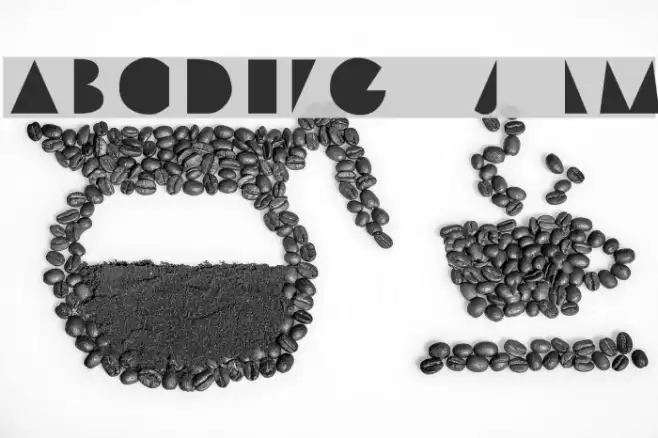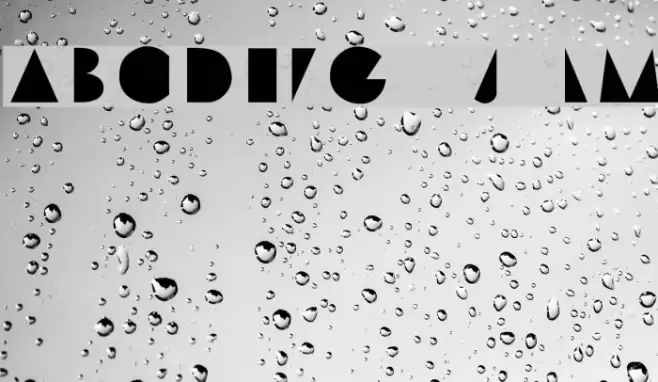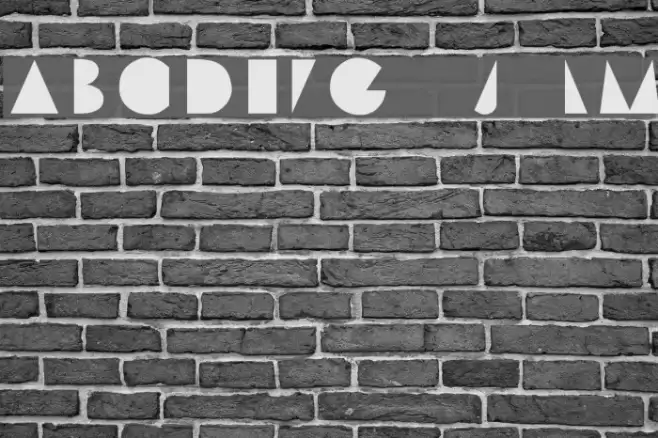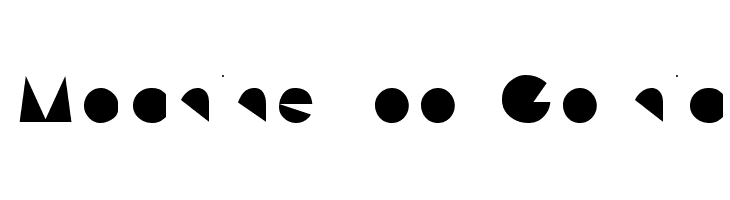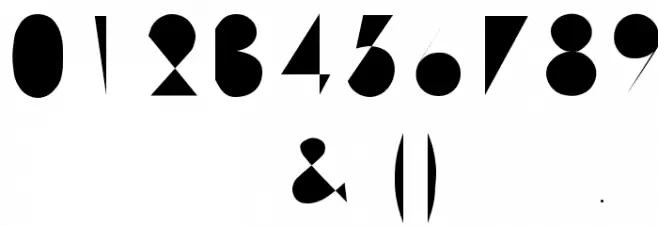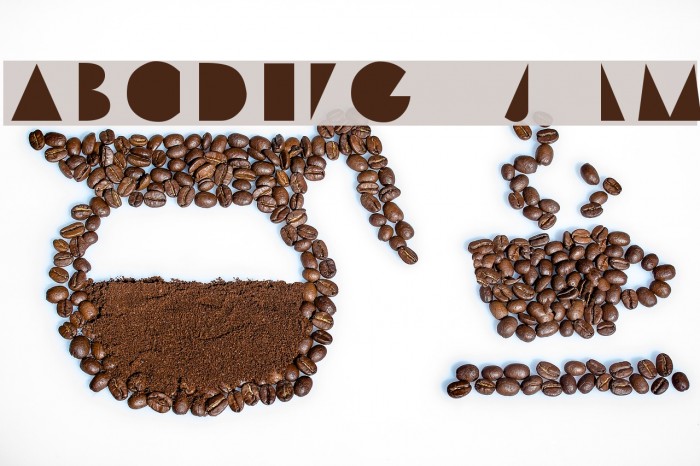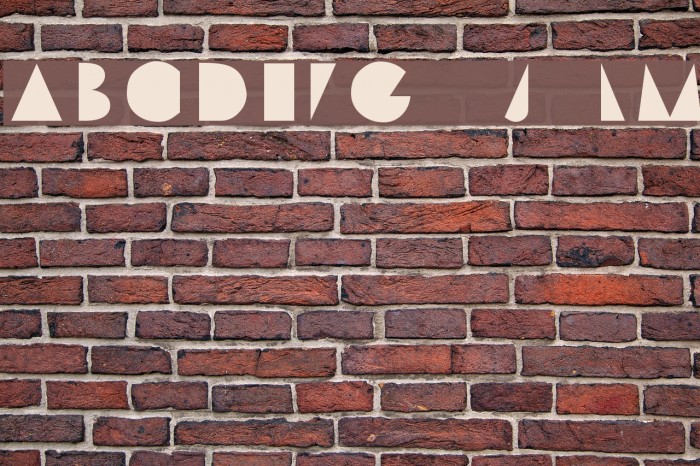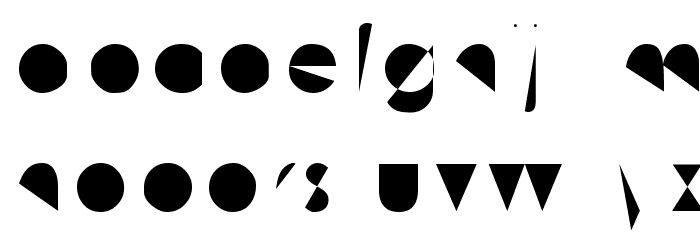
Machine Tool Gothic Font
Machine Tool Gothic Description
This font features a bold, geometric style with a strong emphasis on angular shapes and sharp edges. The characters are constructed using a combination of straight lines and circular forms, creating a distinctive and modern appearance. The uppercase letters are particularly striking, with a futuristic feel that is both eye-catching and unique. The lowercase letters maintain the same geometric style, offering a cohesive look across the typeface. Numbers and special characters are designed with the same bold, angular aesthetic, ensuring consistency throughout. This font is ideal for projects that require a modern, edgy look.
A bold, geometric font with sharp angles and a modern, futuristic style from Uncategorized fonts.